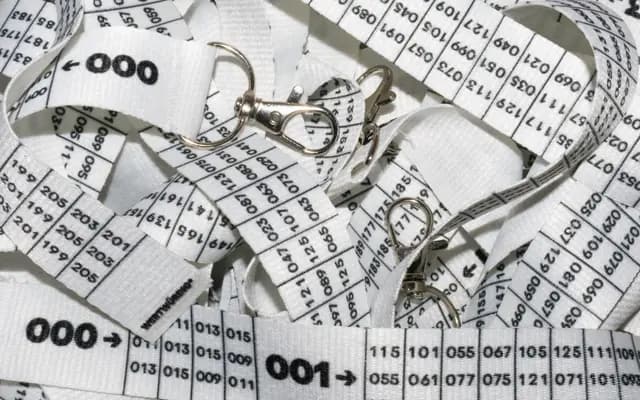
Object Sans
Pangram Foundry · Alex Slobzheninov · 2018
A geometric grotesque with Swiss neo-grotesk roots, designed to cover branding, UI and editorial work across a single family of 16 styles.
Drawn by Alex Slobzheninov, Object Sans combines the clean neutrality of Swiss grotesques with geometric structure, producing a family that sits comfortably across logo design, screen UI, packaging and body text. The Regular weight has been tuned specifically for small-size legibility, while the heavier styles hold up in large display settings. The family ships as a variable font with Latin Extended and Cyrillic coverage, and includes an alternate single-storey 'a' and a numbers-to-arrows feature.
Object Sans blends Swiss neo-grotesk neutrality with geometric construction, placing it firmly in the geometric grotesque subcategory. The foundry explicitly references both Swiss neo-grotesks and geometric fonts as its dual influences.